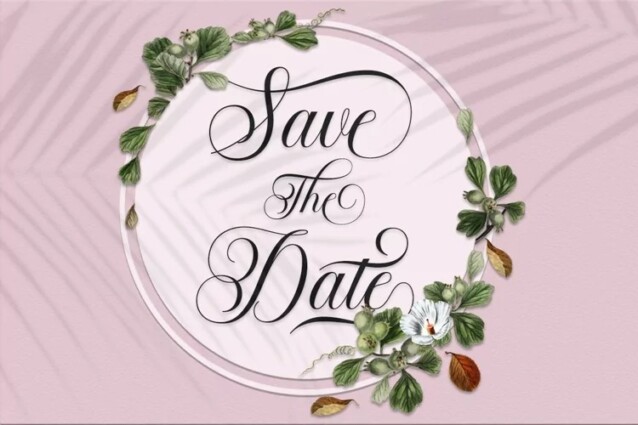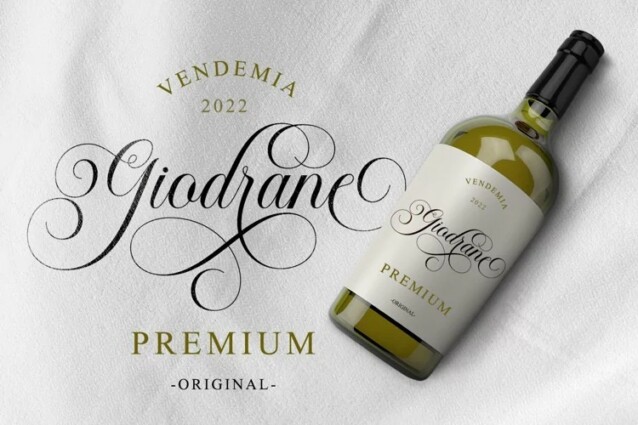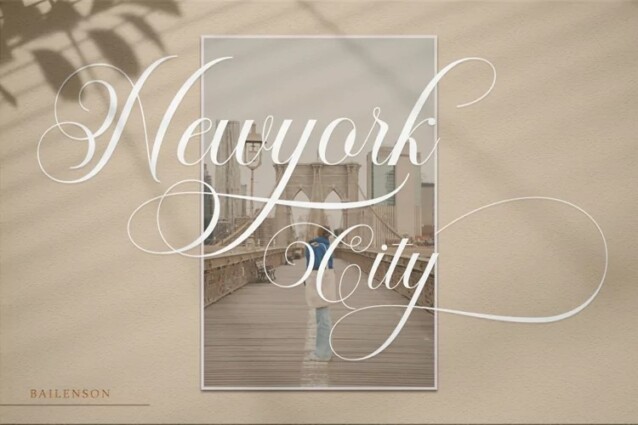
Bailenson Font
Bailenson Font is a natural handwriting modern calligraphy font inspired by Italian women’s handwriting and ancient manuscripts. Carefully designed to work together in harmony making it perfect for wedding favors, book covers, greeting cards, logos, branding, business cards and certificates, even for any design work that requires classic, formal or luxurious.